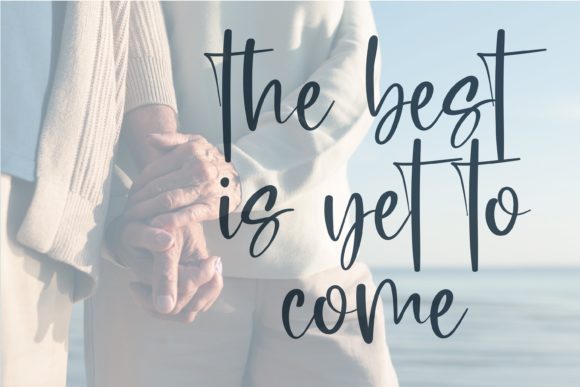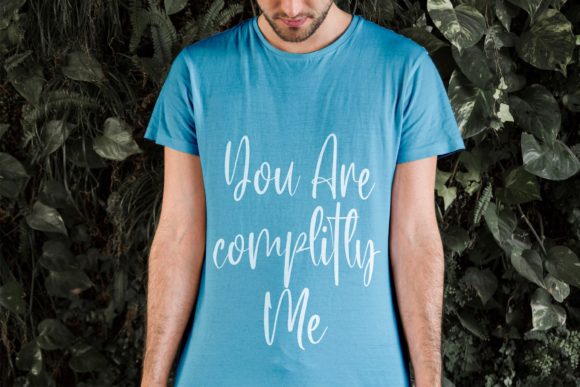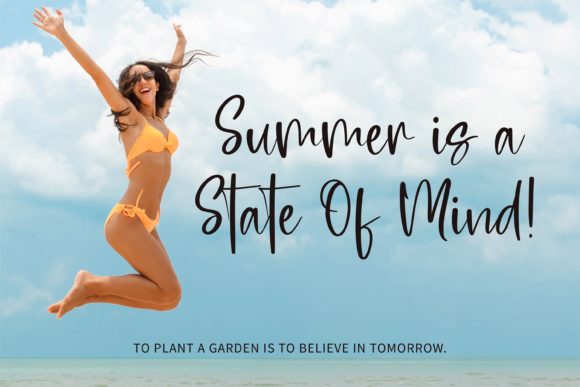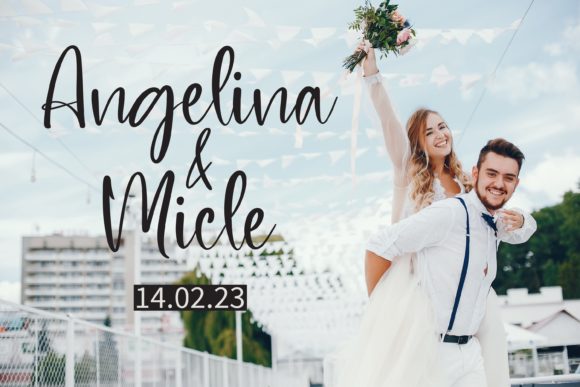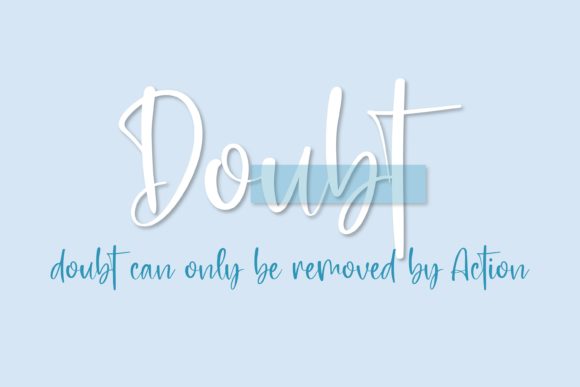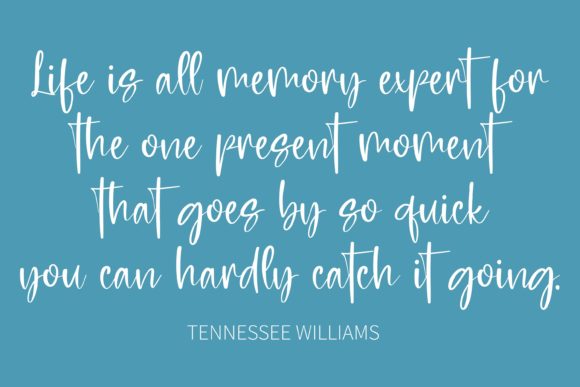
Introducing Be Mine Font: A Delicate and Refined Handwritten Font
Are you looking for a font that adds a touch of elegance and sophistication to your designs? Look no further than Be Mine Font, a beautiful handwritten font that is perfect for a variety of creative projects. In this article, we’ll take a closer look at Be Mine Font, its features, and how you can use it to elevate your designs.
What is Be Mine Font?
Be Mine Font is a handwritten font that feels equally delicate and refined. Its elegant strokes and curves make it a versatile font that can be used for a wide range of design projects. Whether you’re creating wedding invitations, thank you cards, quotes, greeting cards, logos, business cards, or any other design that needs a customized touch, Be Mine Font is the perfect choice.
Features of Be Mine Font
So, what makes Be Mine Font so special? Here are some of its key features:
- Delicate and refined: Be Mine Font has a delicate and refined feel that makes it perfect for designs that require a touch of elegance.
- Handwritten: This font has a handwritten feel that gives it a personal and unique touch.
- Versatile: Be Mine Font can be used for a wide range of design projects, from wedding invitations to business cards.
- Easy to read: Despite its delicate feel, Be Mine Font is easy to read, making it perfect for designs that require a lot of text.
Uses of Be Mine Font
Be Mine Font is a versatile font that can be used for a wide range of design projects. Here are some ideas to get you started:
- Wedding invitations: Be Mine Font is perfect for wedding invitations, adding a touch of elegance and sophistication to your designs.
- Thank you cards: Use Be Mine Font to create beautiful thank you cards that will make your recipients feel special.
- Quotes: Add a touch of elegance to your quotes with Be Mine Font, making them perfect for social media, blogs, or print designs.
- Greeting cards: Be Mine Font is perfect for creating greeting cards for special occasions, such as birthdays, anniversaries, or holidays.
- Logos: Use Be Mine Font to create a unique and elegant logo for your business or brand.
- Business cards: Add a touch of sophistication to your business cards with Be Mine Font, making them perfect for networking events or conferences.
Tips for Using Be Mine Font
Here are some tips for using Be Mine Font in your designs:
- Pair it with other fonts: Be Mine Font looks great when paired with other fonts, such as sans-serif fonts or script fonts.
- Use it for headings: Be Mine Font is perfect for headings, adding a touch of elegance and sophistication to your designs.
- Experiment with colors: Try using Be Mine Font in different colors to add a pop of color to your designs.
- Keep it simple: Don’t overcomplicate your designs. Keep it simple and let Be Mine Font shine.
Be Mine Font is a beautiful handwritten font that is perfect for designers and crafters looking to add a touch of elegance and sophistication to their designs. With its delicate and refined feel, versatility, and ease of use, Be Mine Font is a must-have font for any designer or crafter. So why not give it a try and see how it can elevate your designs?
- What is Be Mine Font? Be Mine Font is a handwritten font that feels equally delicate and refined.